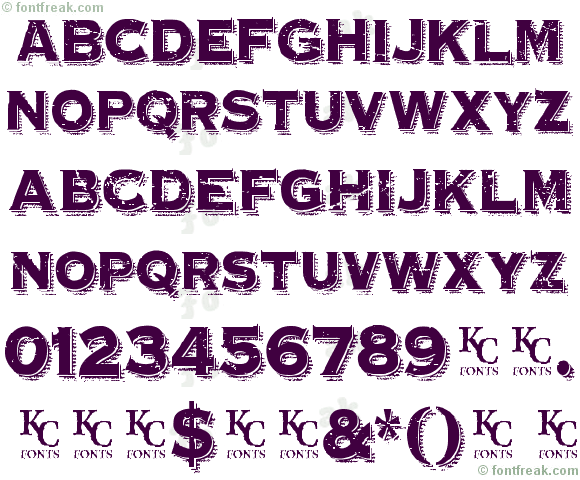
Hooverville
About Hooverville
Hooverville is a striking display font designed by Kevin Christopher, characterized by its bold and distinctive style that falls into the decorative category. The font features a unique combination of thick and thin strokes, giving it a strong visual presence while maintaining an artistic flair. Its irregular edges and distressed appearance evoke a sense of nostalgia, making it perfect for projects that require a vintage or retro aesthetic. The spacing between characters is well-considered, enhancing readability without sacrificing the font’s creative essence.
This versatile font excels in various applications, making it a favorite among graphic designers and content creators. It is particularly well-suited for attention-grabbing movie posters, where its boldness can effectively convey the film's themes. Additionally, Hooverville shines in restaurant menus, adding a unique touch that can attract diners' attention. Wedding invitations also benefit from its distinctive character, providing a memorable visual element that stands out during such special occasions. Small business owners can utilize this font in branding materials, ensuring that their visual communications resonate with their target audience.
What sets Hooverville apart is its blend of boldness and charm, making it a standout choice for anyone looking to make a memorable impression. Its unique visual characteristics and broad applicability ensure that whatever the project, Hooverville font free download will add an unmistakable flair that captures attention and leaves a lasting impact.